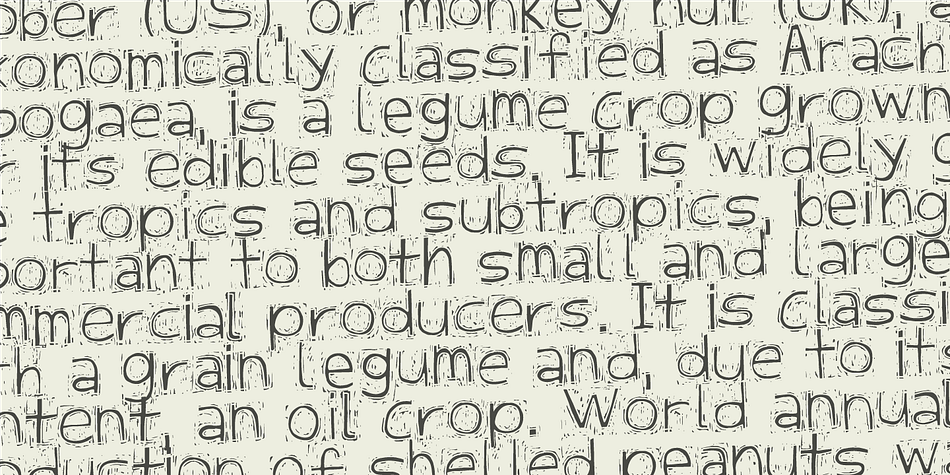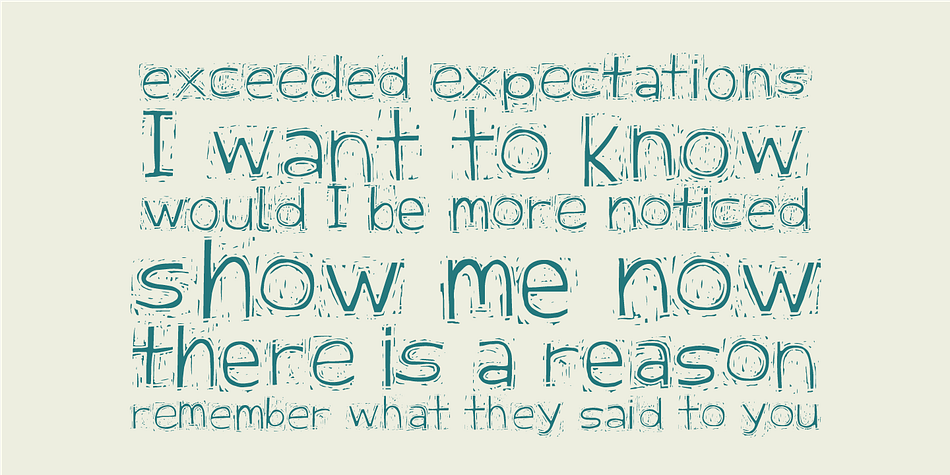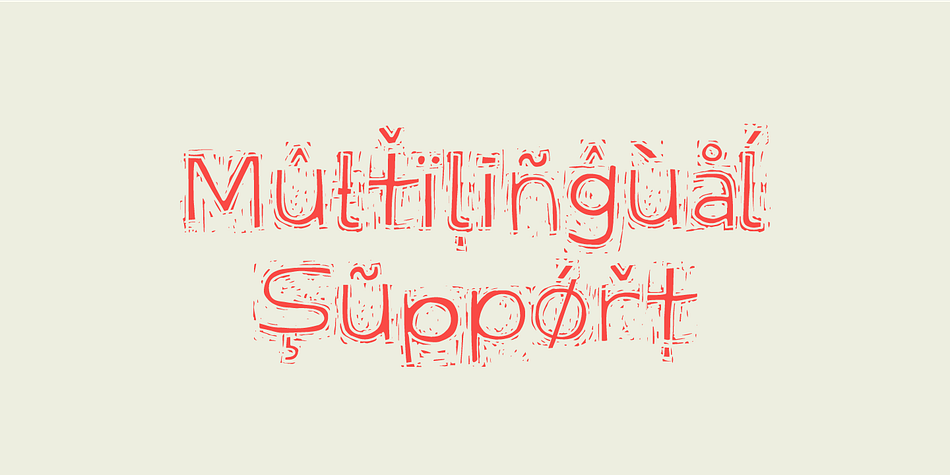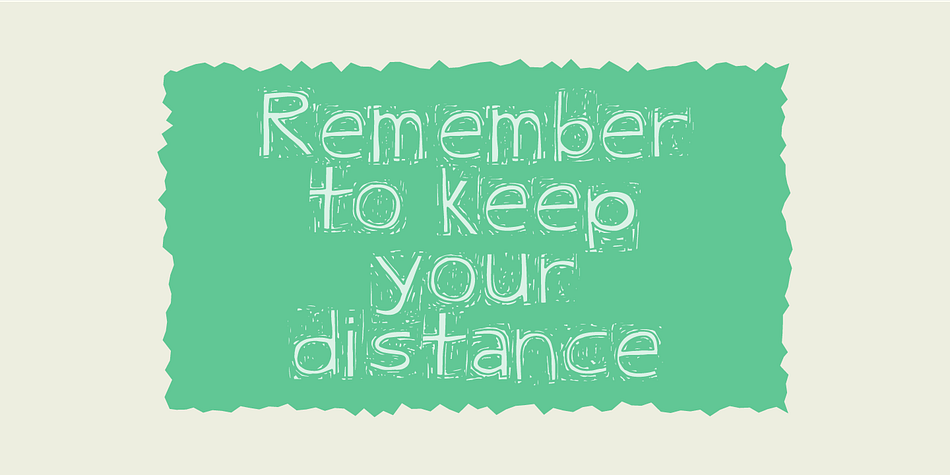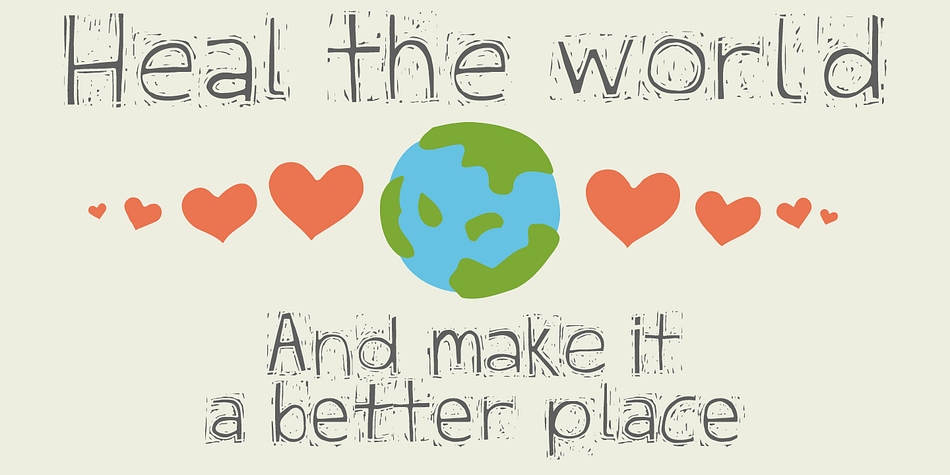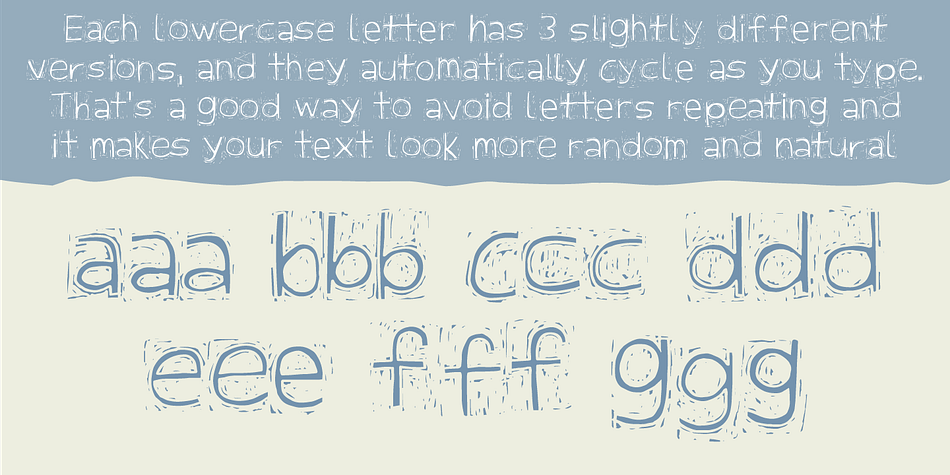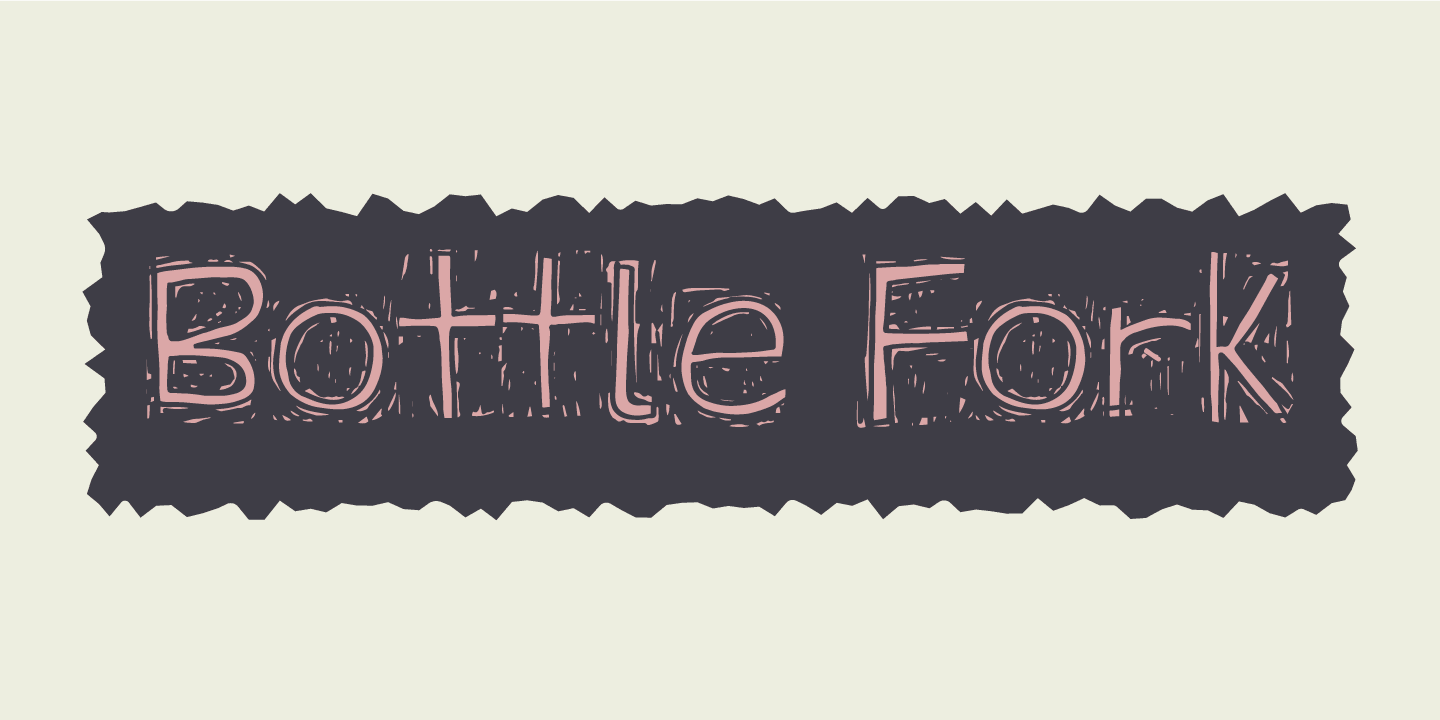
Designed by Jakob Fischer, Bottle Fork is a display font published by Pizzadude.dk.
Here is my font with carved out letters, like a really bad stamp. Each lowercase letter has 3 different versions, and that makes your text more natural, organic and handmade. Normally I kern my fonts throughout, but this time there is no kerning at all…and that’s odd, when we’re not talking about monospaced fonts. Anyway, Bottle Fork has its flaws and jumpy x-height…but that’s exactly the charm of it all! :)